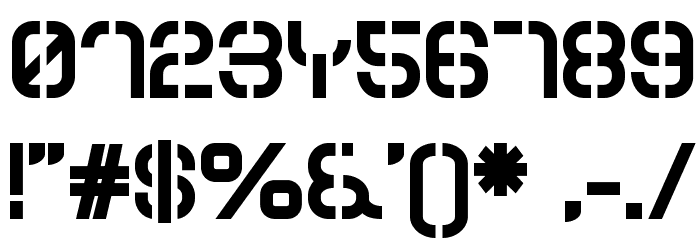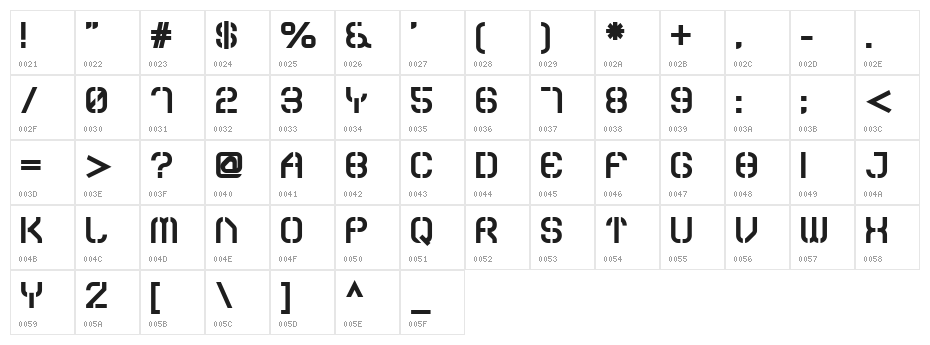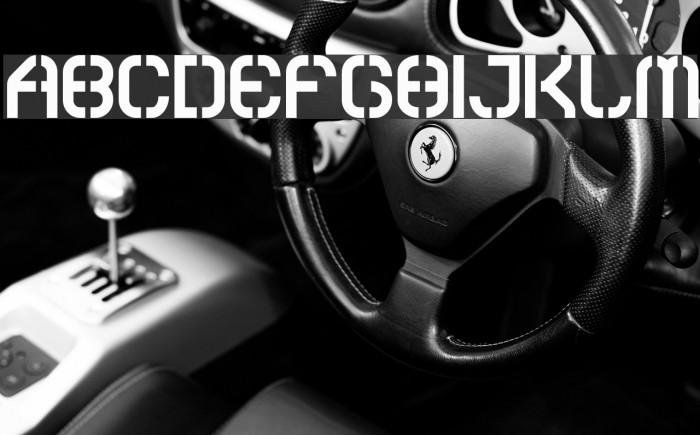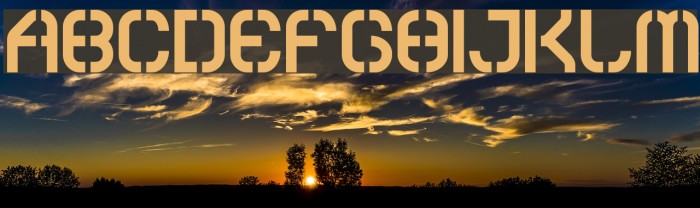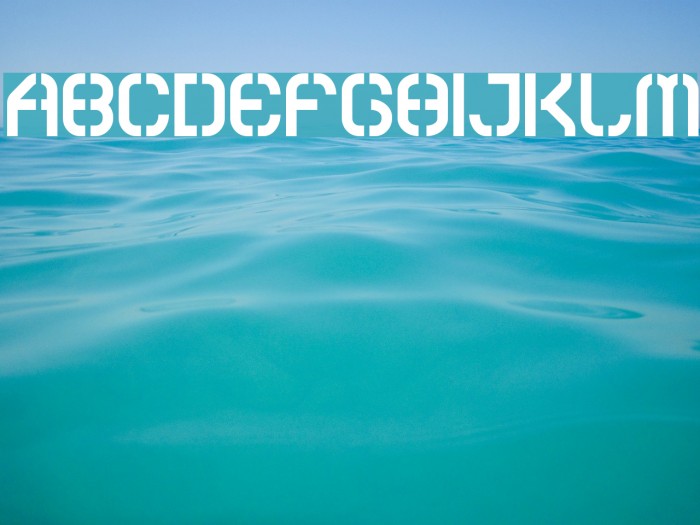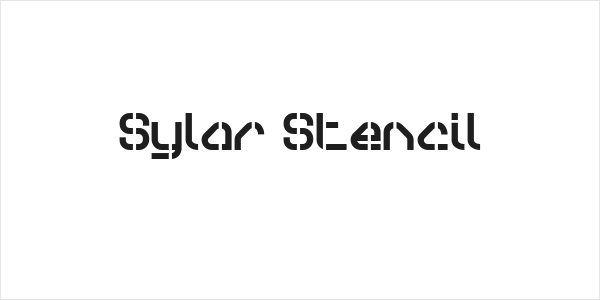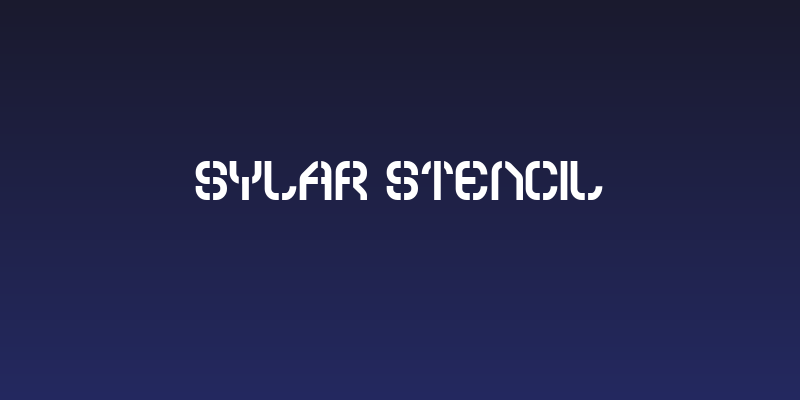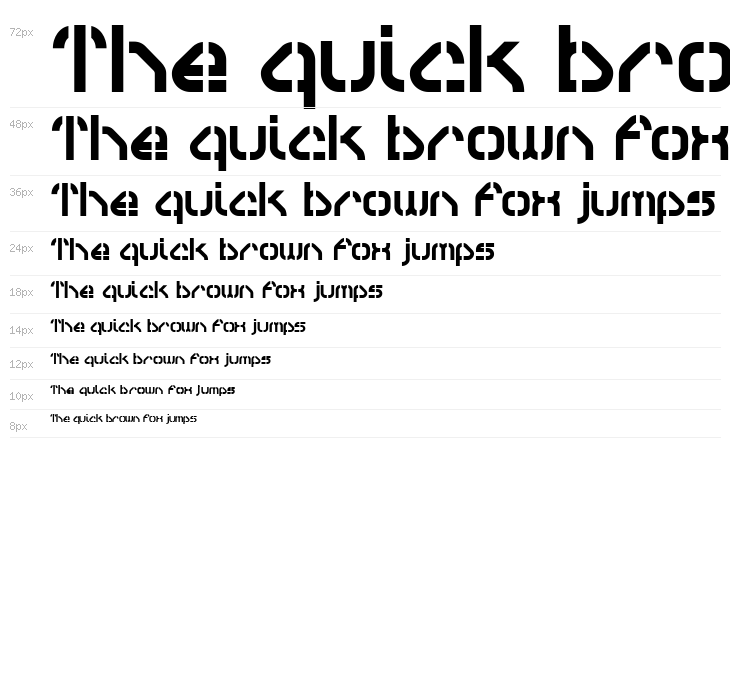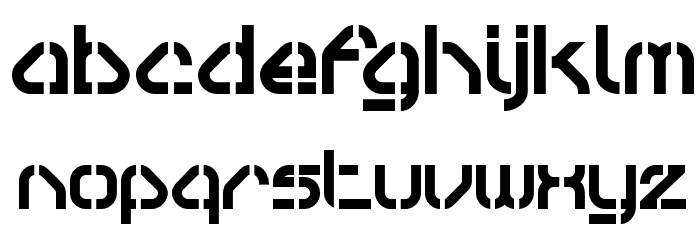
Sylar Stencil Font
Sylar Stencil Description
This font features a bold, geometric stencil design with a modern and industrial feel. The characters are constructed with clean, sharp lines and distinct cut-out sections, creating a sense of movement and dynamism. The uppercase and lowercase letters maintain a consistent style, with rounded edges and uniform stroke widths. Numbers and special characters follow the same aesthetic, ensuring a cohesive look across all text. The font's unique style makes it stand out, ideal for projects that require a strong visual impact.
A bold, geometric stencil font with a modern, industrial aesthetic from Stencil fonts.
- Proposed Projects: Ideal for branding, posters, signage, and any project needing a bold, impactful look.